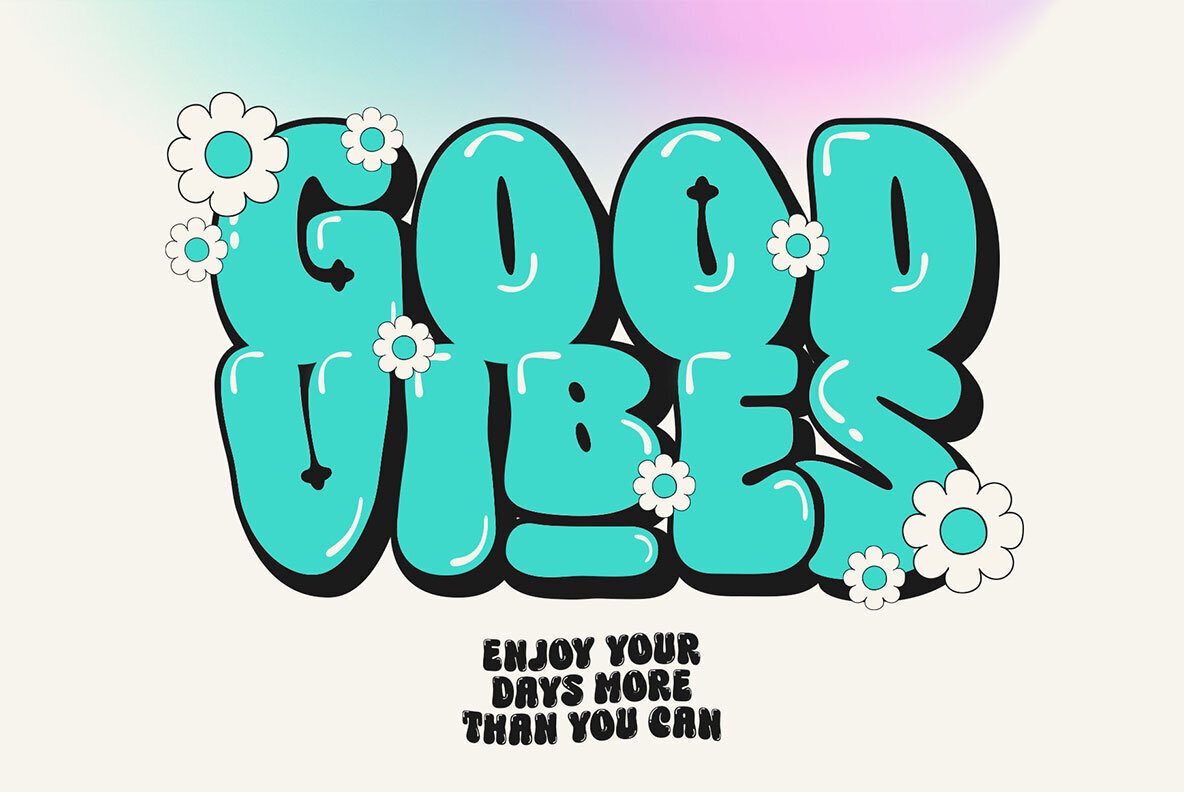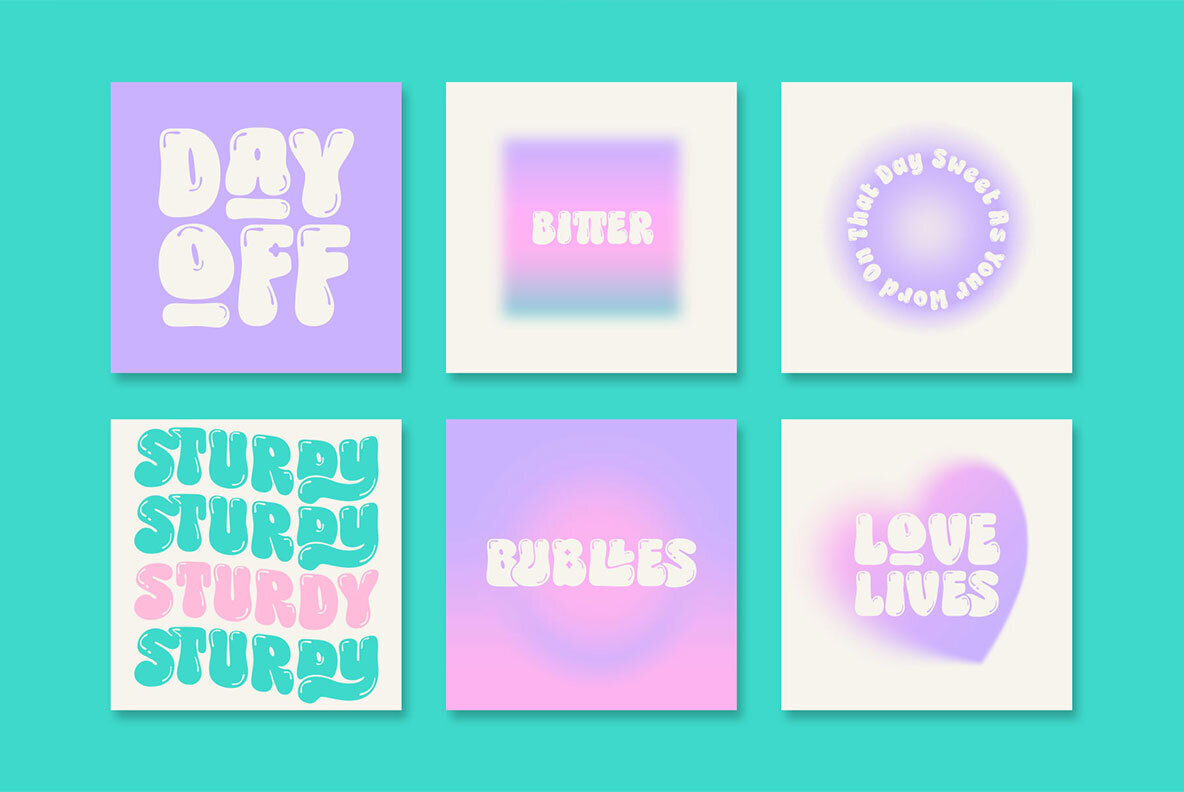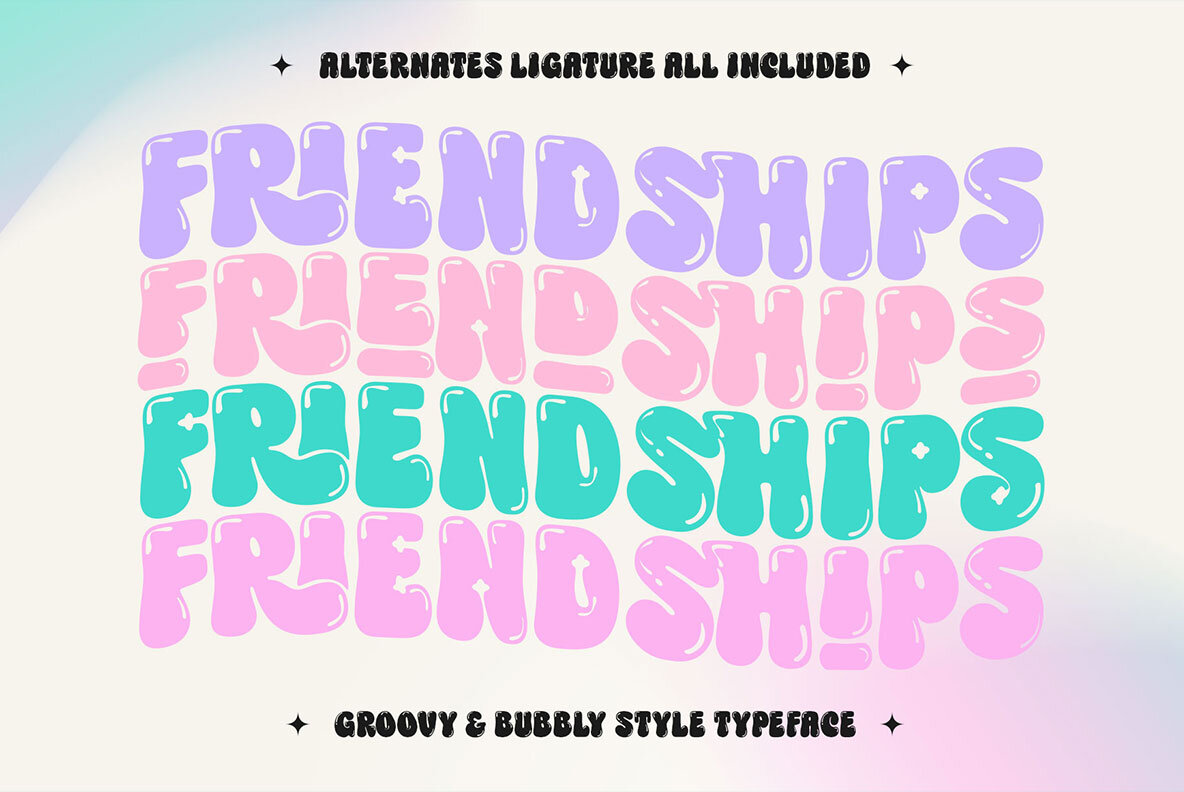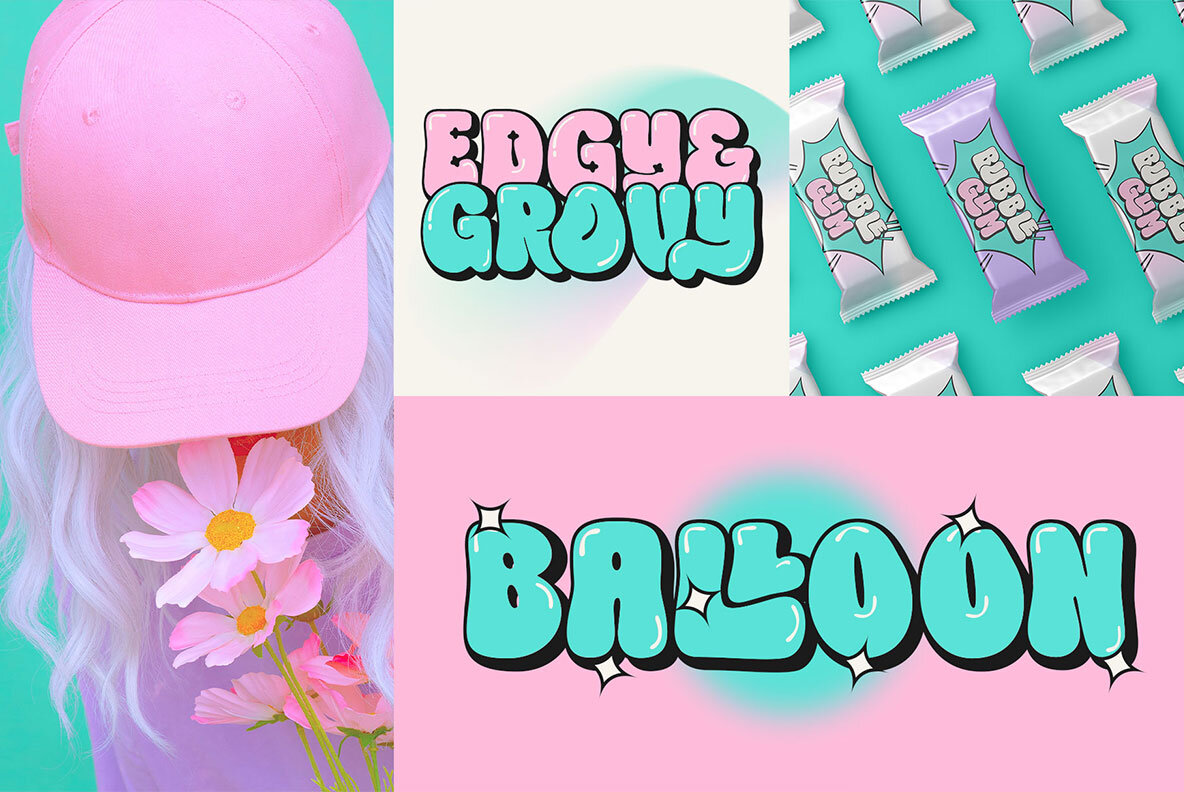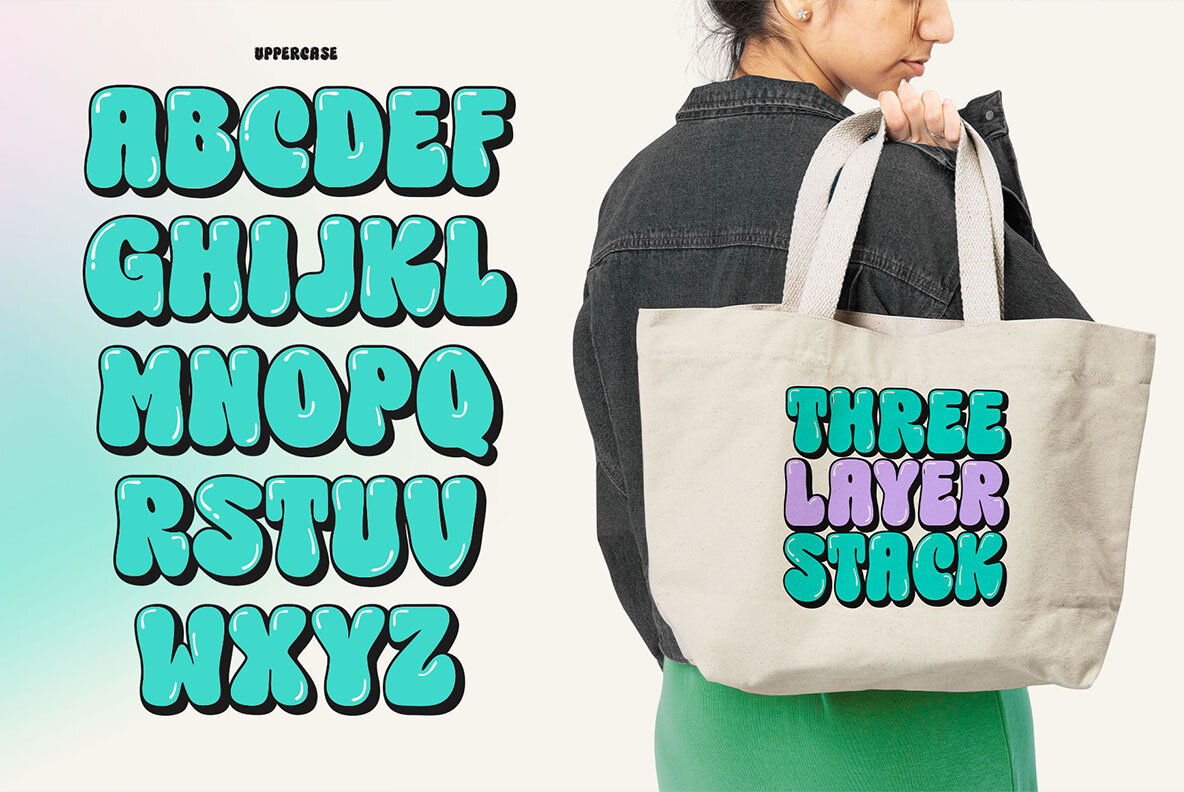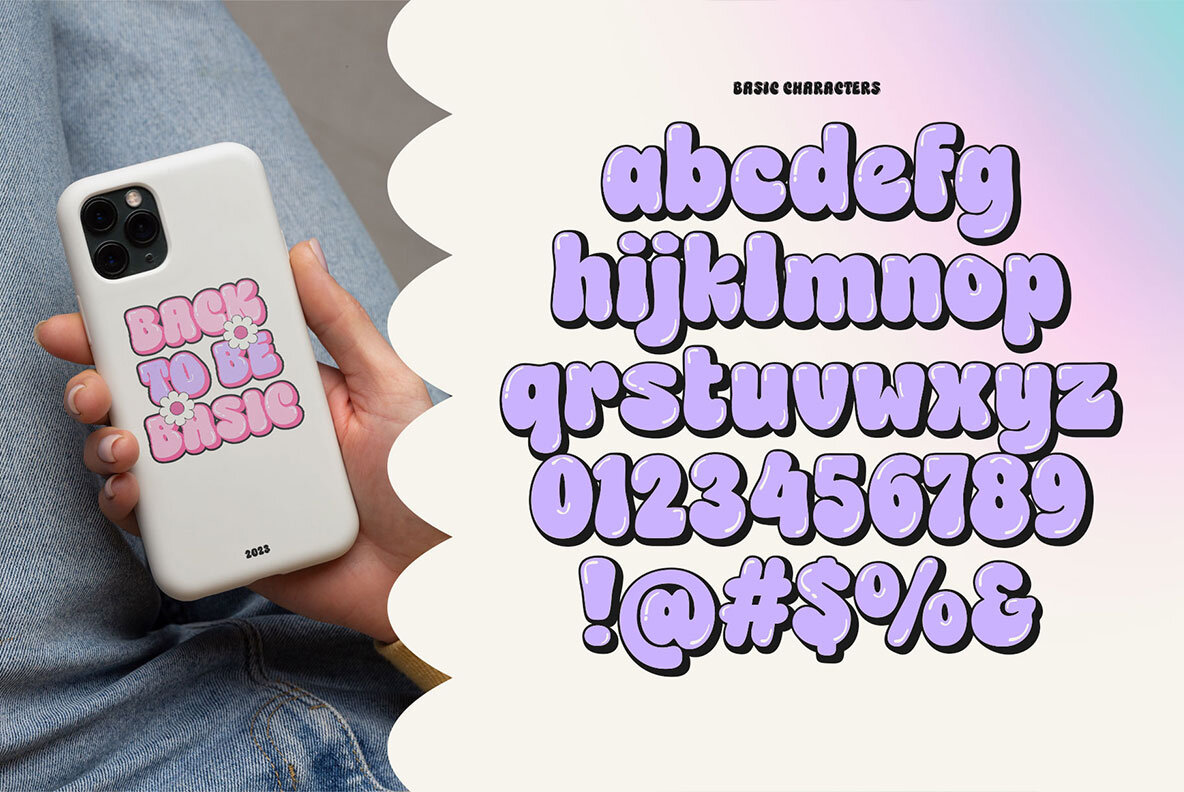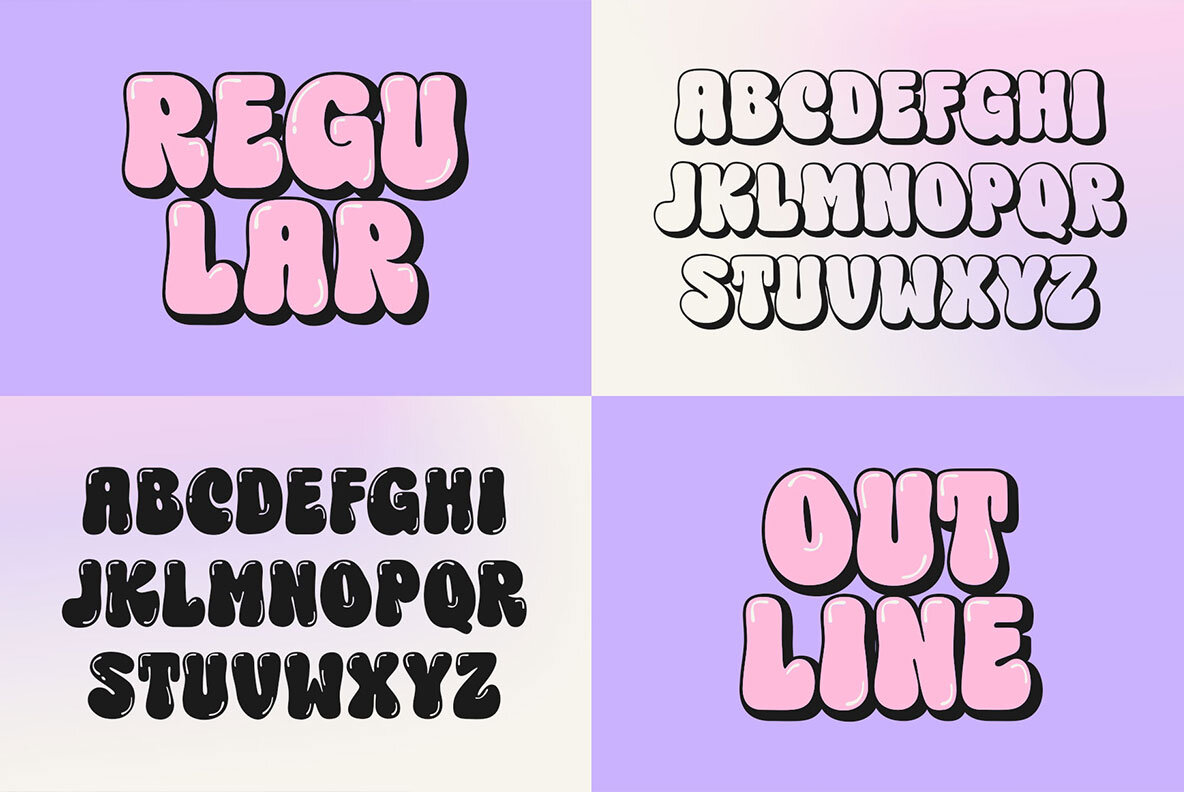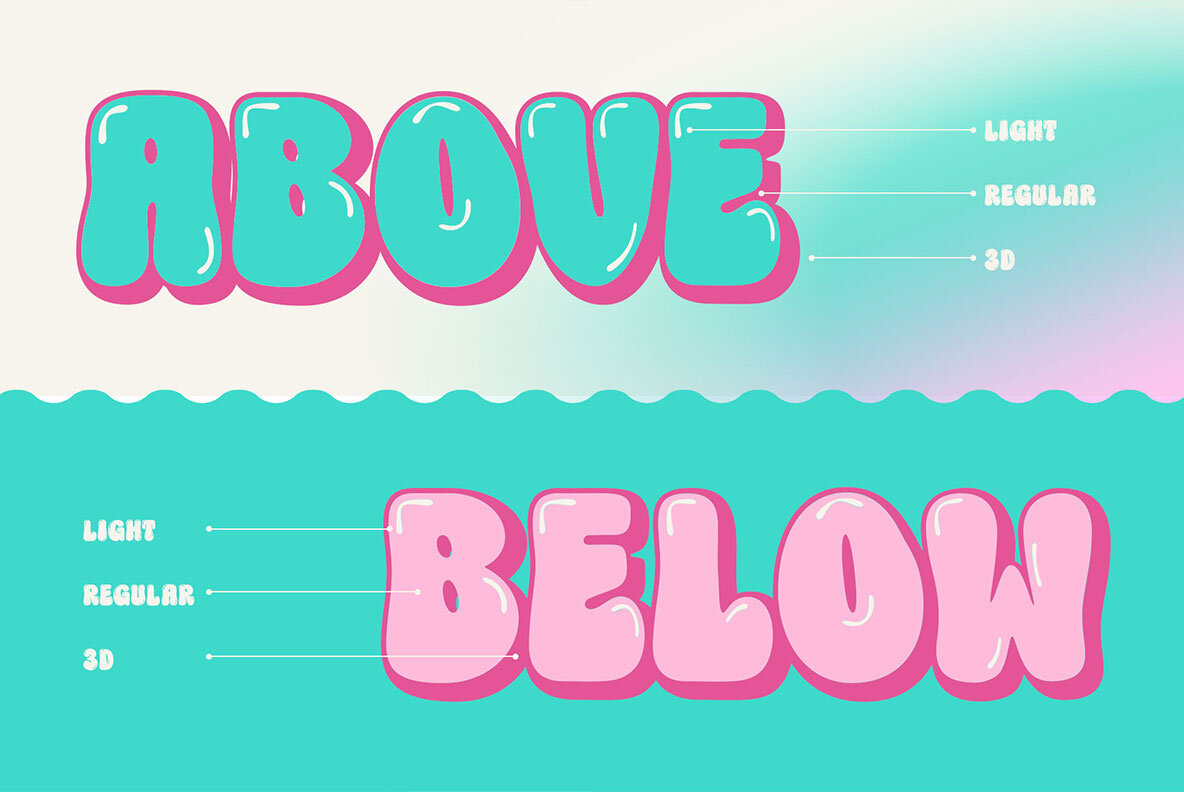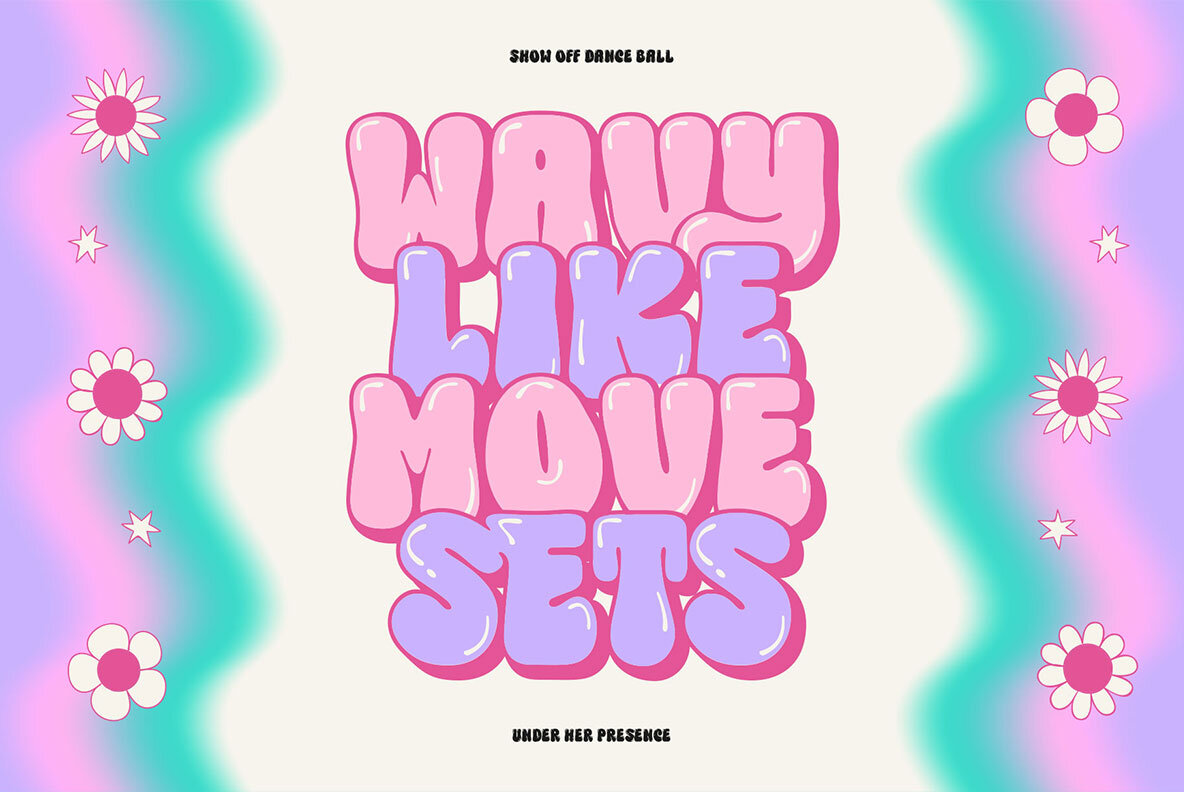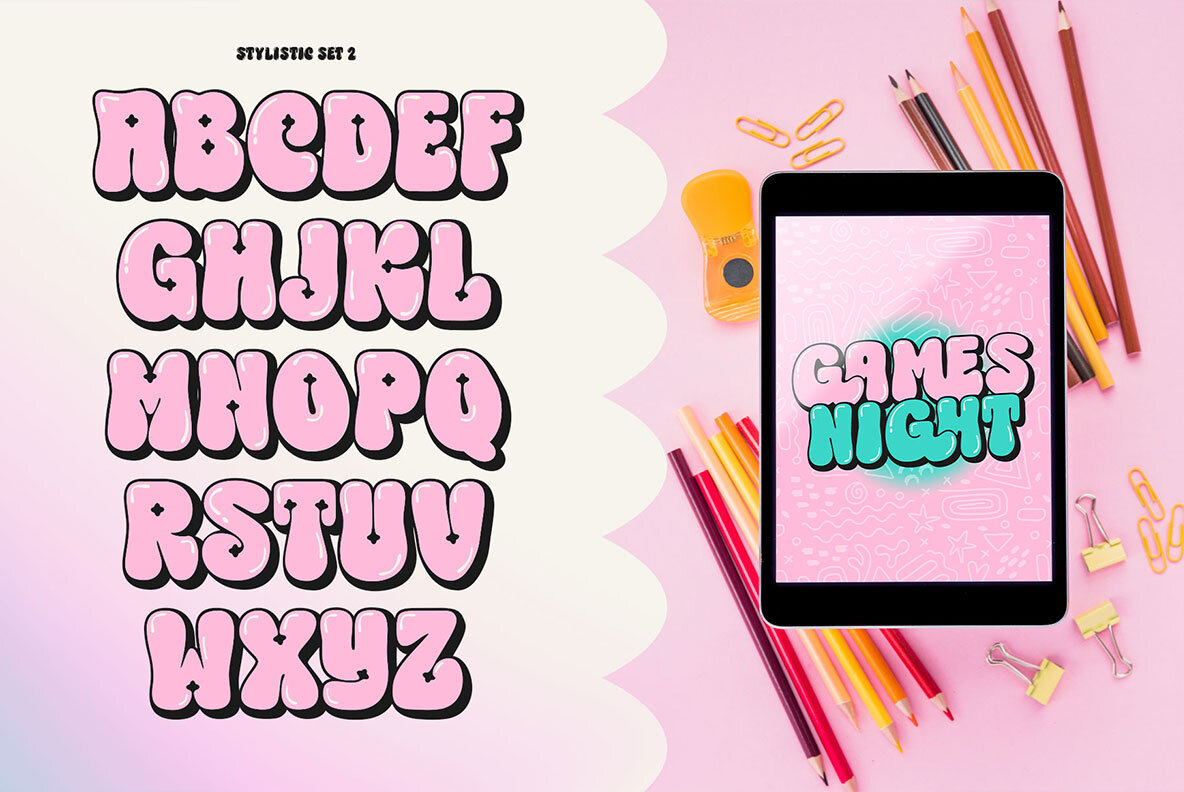
Choret Fudyng Font
Choret Fudyng Light Light
Choret Fudyng Regular
Choret Fudyng 3D 3D
Choret Fudyng Bubble Bubble
Introducing Choret Fudyng, a captivating Bubble style font that elevates your designs. With 3D, Regular, and Light variants, it suits logos, posters, and social media. Meticulously crafted letters create visually pleasing and harmonious typography. Choret Fudyng offers PUA Unicode support, multilingual capabilities, and extensive ligature options for seamless connections. Unlock typographic versatility with Choret Fudyng, a must-have for designers. Language Support: Latin, Western European, Central European, South European, Vietnamese.